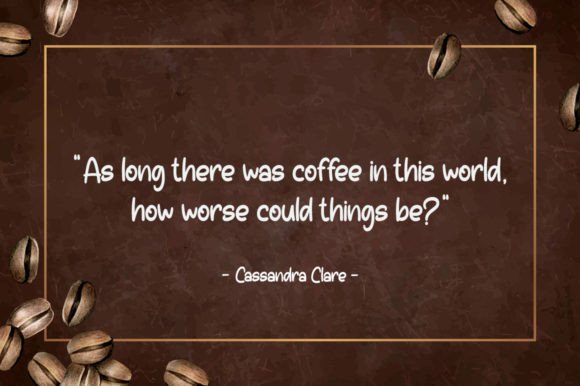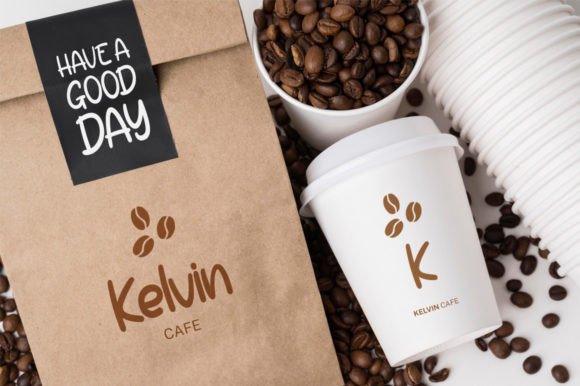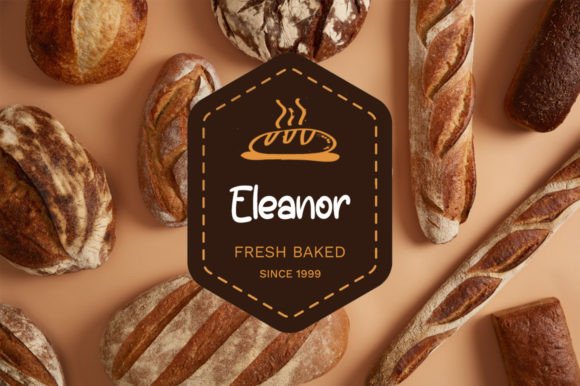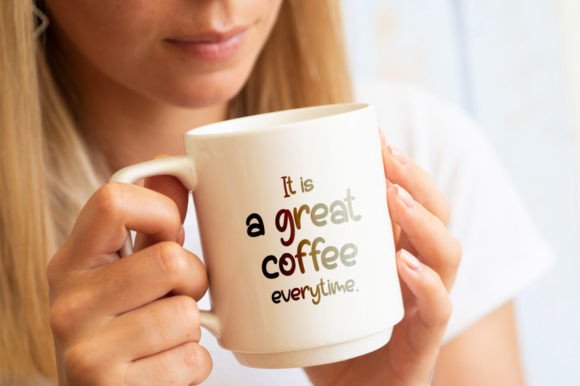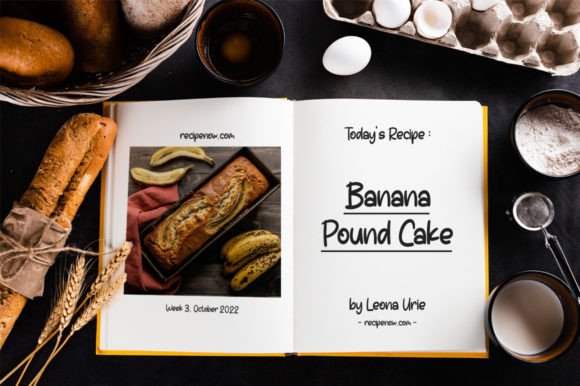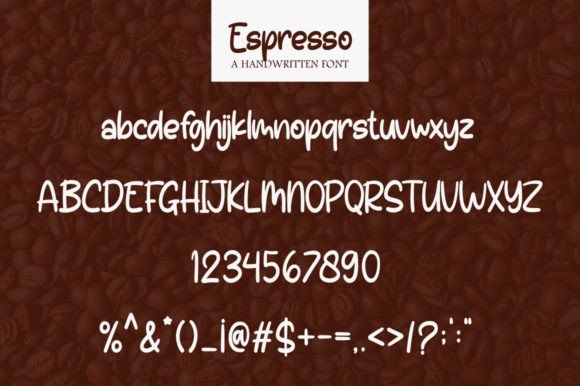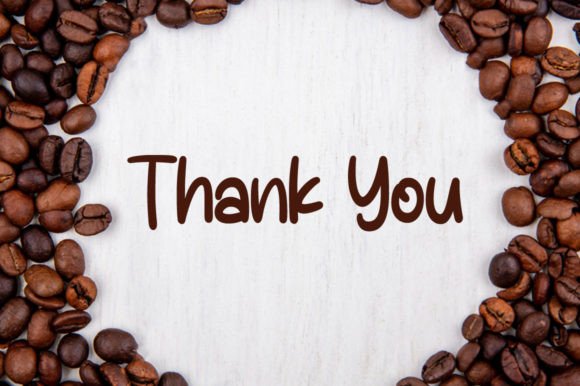
Espresso Font
About Espresso Font
**”Espresso” Handwritten Font: Authenticity and Elegance for Chalkboard Designs**
The “Espresso” handwritten font combines authenticity with elegance, making it an ideal choice for creating chalkboard quotes and teaching materials. Its genuine appearance adds a personal and realistic touch to your designs. Here are some creative applications and design ideas where “Espresso” can shine:
1. **Chalkboard Quotes:** “Espresso” is tailored for chalkboard quotes. Whether you’re designing inspirational phrases, daily reminders, or memorable sayings, this font captures the essence of hand-lettered chalkboard art.
2. **Educational Materials:** Create engaging educational materials such as worksheets, flashcards, and posters using “Espresso.” Its genuine style adds approachability to teaching content.
3. **Classroom Decor:** Beautify your classroom with “Espresso” chalkboard-style posters and displays. Use it for bulletin board headers, classroom rules, or subject labels.
4. **Invitations and Event Signage:** Design invitations and event signage with a chalkboard-inspired theme. “Espresso” adds a touch of rustic elegance to event announcements and signs.
5. **Restaurant Menus:** Develop chalkboard-style menus for restaurants, cafes, or bistros. “Espresso” lends a casual yet sophisticated look to menu boards and daily specials.
6. **Craft Projects:** Incorporate “Espresso” into DIY craft projects like handmade greeting cards, scrapbooking, and home decor items such as custom chalkboard signs.
7. **Social Media Graphics:** Create eye-catching social media graphics with a chalkboard aesthetic. “Espresso” is perfect for promoting quotes, events, or daily specials on social platforms.
8. **Book Covers:** Customize book covers with the “Espresso” font to give them an artisanal and artistic appearance. It’s suitable for genres like poetry, self-help, or vintage-themed books.
9. **Logo and Branding:** Develop logos and branding materials for businesses with a rustic or artisanal identity. “Espresso” adds a personal and distinctive touch to brand identities.
10. **Vintage Labels:** Design vintage-style labels for homemade products such as jams, preserves, or artisanal candles. “Espresso” complements the handmade and nostalgic vibe.
11. **Artisanal Packaging:** Elevate the packaging of artisanal goods with “Espresso.” It adds authenticity to product labels and packaging designs.
12. **Typography Art:** Craft typography-based artwork and prints. “Espresso” lends itself to creating visually appealing art pieces featuring text-driven designs.
13. **Handcrafted Signage:** Create hand-lettered signs for events, markets, or local businesses. “Espresso” gives signage a warm and inviting appeal.
14. **Inspirational Posters:** Design posters featuring motivational quotes or positive affirmations using the “Espresso” font. It conveys a sense of encouragement and genuineness.
“Espresso” is more than just a font; it’s a tool for infusing authenticity and elegance into your design projects. Whether you’re adding charm to your classroom materials, crafting chalkboard-style quotes, or enhancing your brand’s rustic identity, “Espresso” captures the essence of handwritten authenticity. Its straightforward yet elegant letterforms make it versatile and well-suited for a wide range of creative applications.